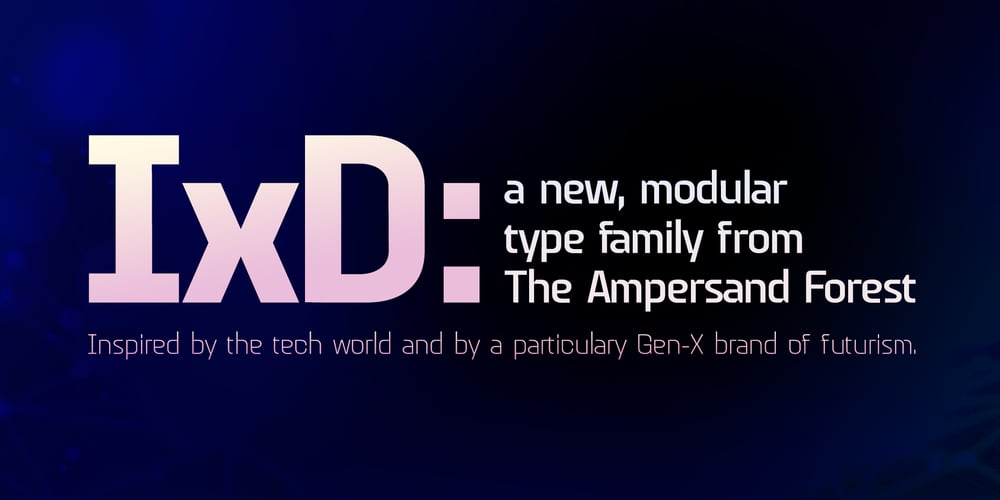
IxD Font Family was designed by DC Scarpelli and published by The Ampersand Forest. IxD contains 3 styles and family package options. IxD is a modular, semi-futuristic sans serif that uses its geometry to evoke the kind of future we all thought we’d have back when we were kids: sleek, assertive, cool. Many of its deep cuts and unusual letterforms are strikingly out of the norm, but they still feel inviting.